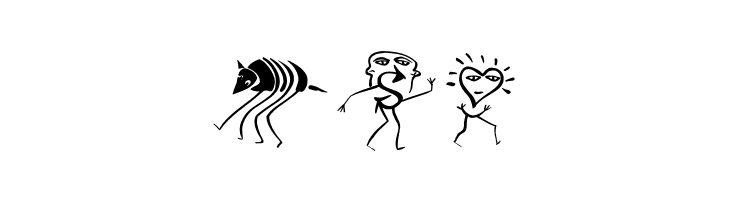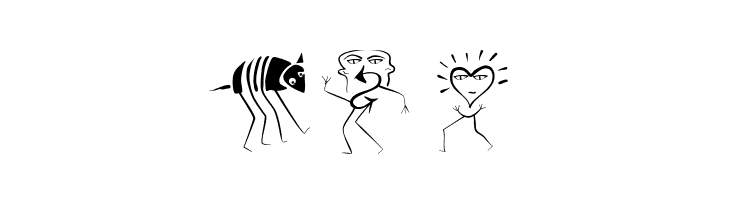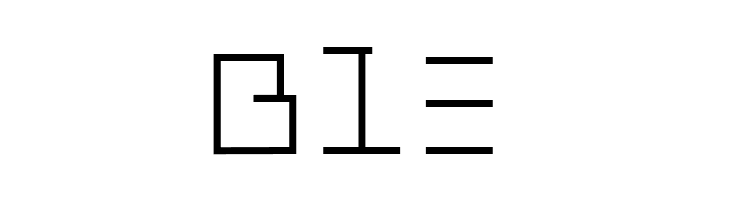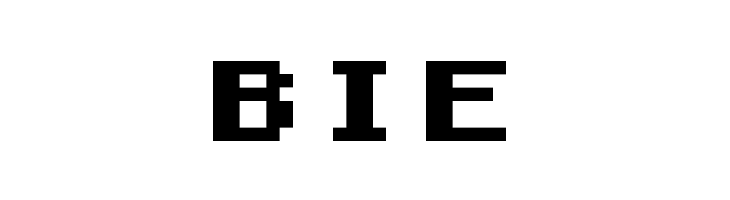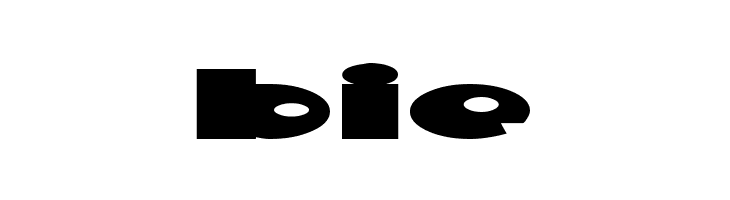
• Gakuwa Regular
A bold, playful font with geometric and organic elements, ideal for creative projects.
• Gamble
• Gamegirl Classic
A pixelated, retro-style font inspired by classic video games.
• Gastronom
A playful, hand-drawn style font with bold, irregular characters and a whimsical flair.
• Genetic Engine
A futuristic, geometric font with blocky, uniform letterforms enclosed in squares.
• GenManipulated
A quirky, decorative font with surreal, illustrated stick-figure characters.
• GenManipulatedRounded
Abstract, creature-inspired decorative font with hand-drawn style.
• GenotypiPrototype
A geometric, pixelated font with a digital, retro-futuristic style.
• GeosansLight-Oblique
A sleek, modern, and oblique sans-serif font with light weight and medium contrast.